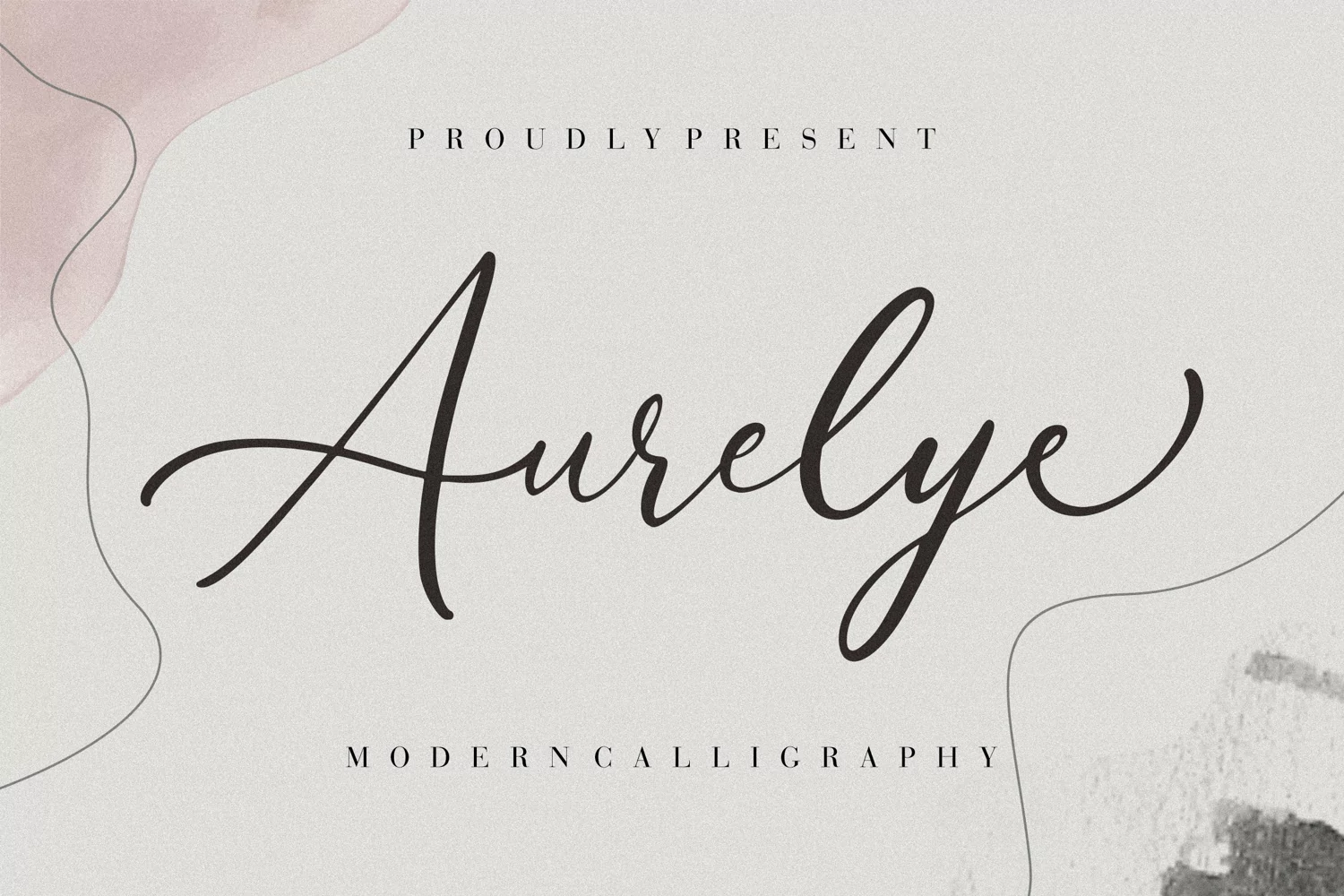
Aurelye Modern Calligraphy
Aurelye
Aurelye is modern calligraphy font with lots of stylish alternative and ligature glyphs.
Aurelye is perfect for branding projects, logo, wedding designs, social media posts, advertisements, product packaging, product designs, label, photography, watermark, invitation, stationery and any projects that need handwriting taste.
• Ton of glyphs
• Ligature & Alternate